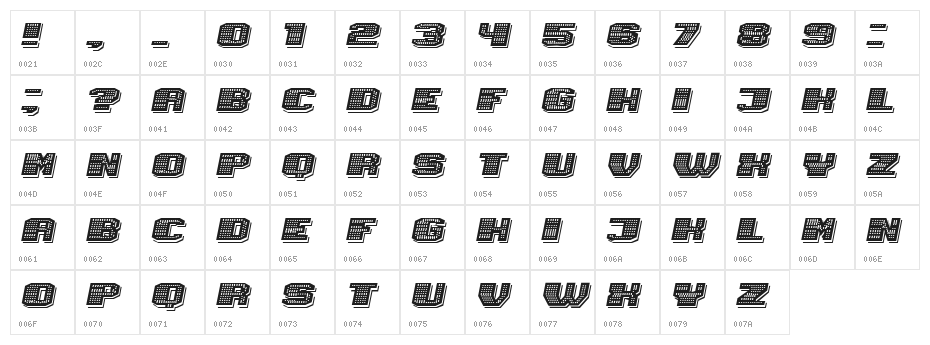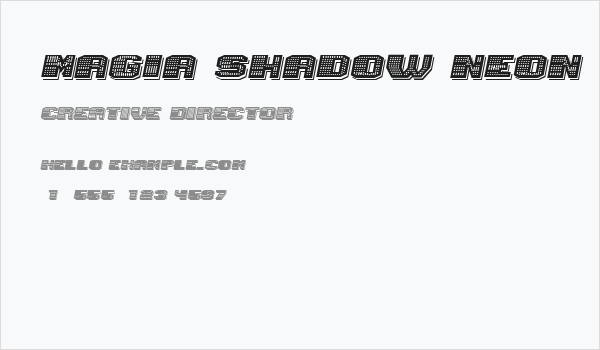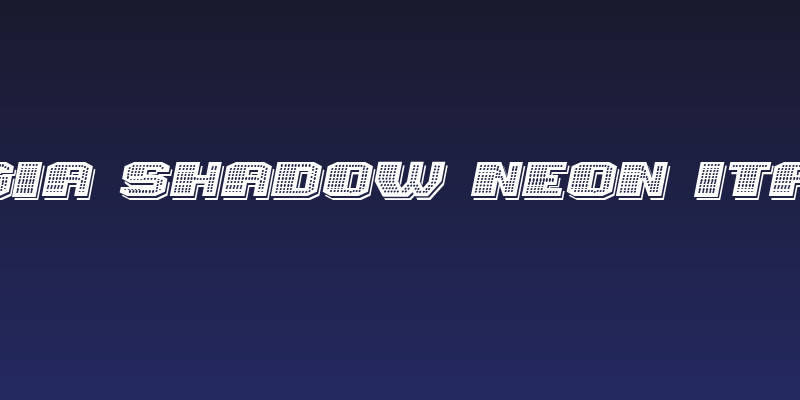
Magia Shadow Neon Italic Font
Magia Shadow Neon Italic Description
This font features a bold and dynamic design with a distinct shadow effect that gives it a three-dimensional appearance. The characters are outlined with a dotted pattern, enhancing its neon-like aesthetic. The italicized slant adds a sense of motion and energy, making it stand out. Each letter and number maintains a consistent style, with sharp edges and a modern flair. The special characters are designed to match the overall theme, ensuring uniformity across all glyphs. This font is ideal for projects that require a vibrant and eye-catching typeface.
| Proposed Projects | Perfect for retro-themed designs, neon signage, event posters, and digital art projects. |